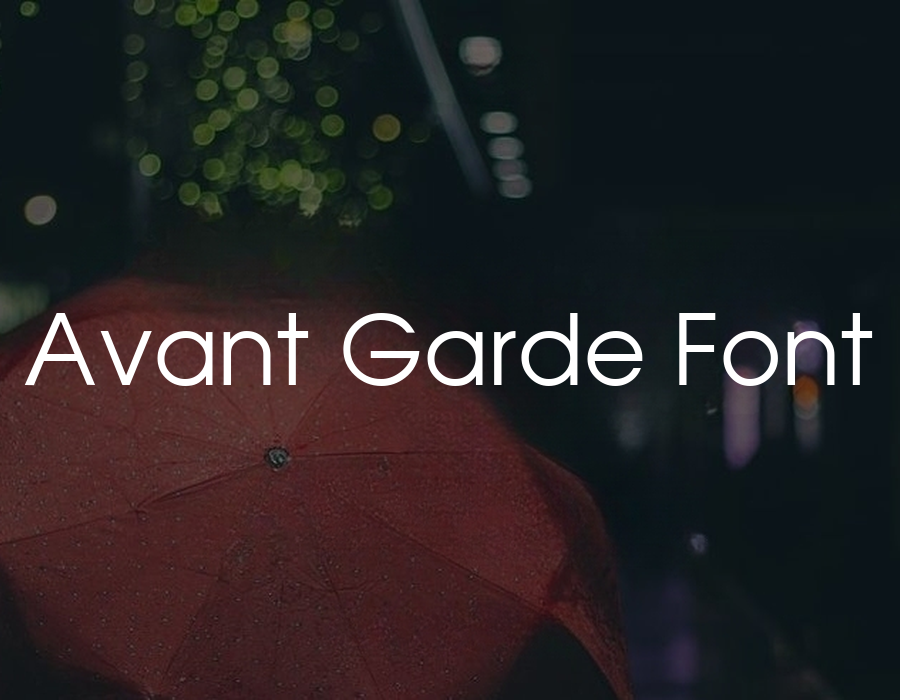
About Avant Grade Font
Avant Garde Gothic, often simply called "Avant Garde," is a distinctive geometric sans-serif typeface that originated from the custom logotype Herb Lubalin designed for Avant Garde magazine in the late 1960s. Its most recognizable feature is its tight, circular letterforms and the extensive set of unique ligatures that allow characters to interlock, creating a compact, graphic word-shape. The font embodies the bold, experimental spirit of late-20th-century graphic design. While its dramatic ligatures are best for display settings, its standard characters offer a clean, modern geometric style suitable for headlines and branding that seeks a retro-futuristic or editorial flair.